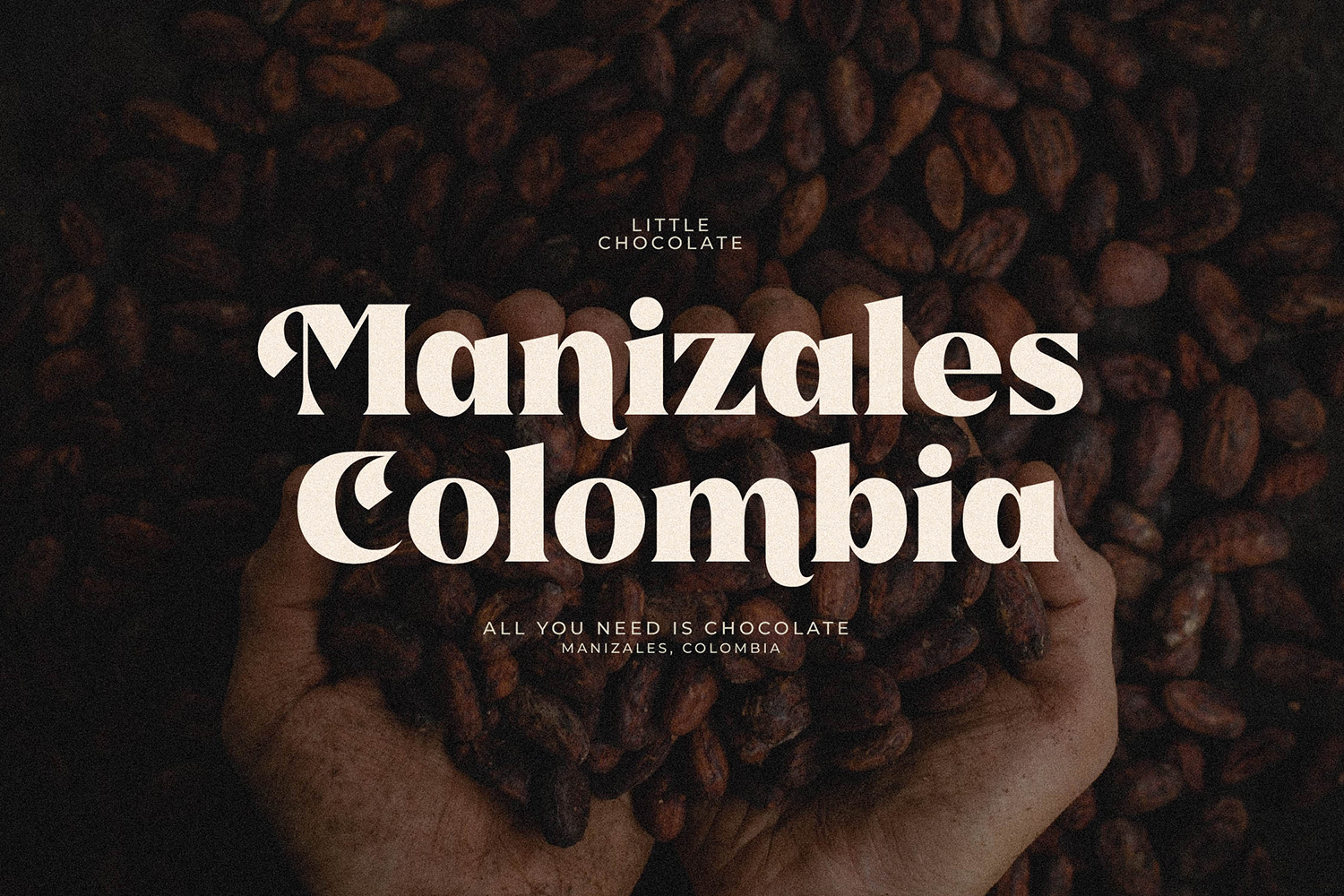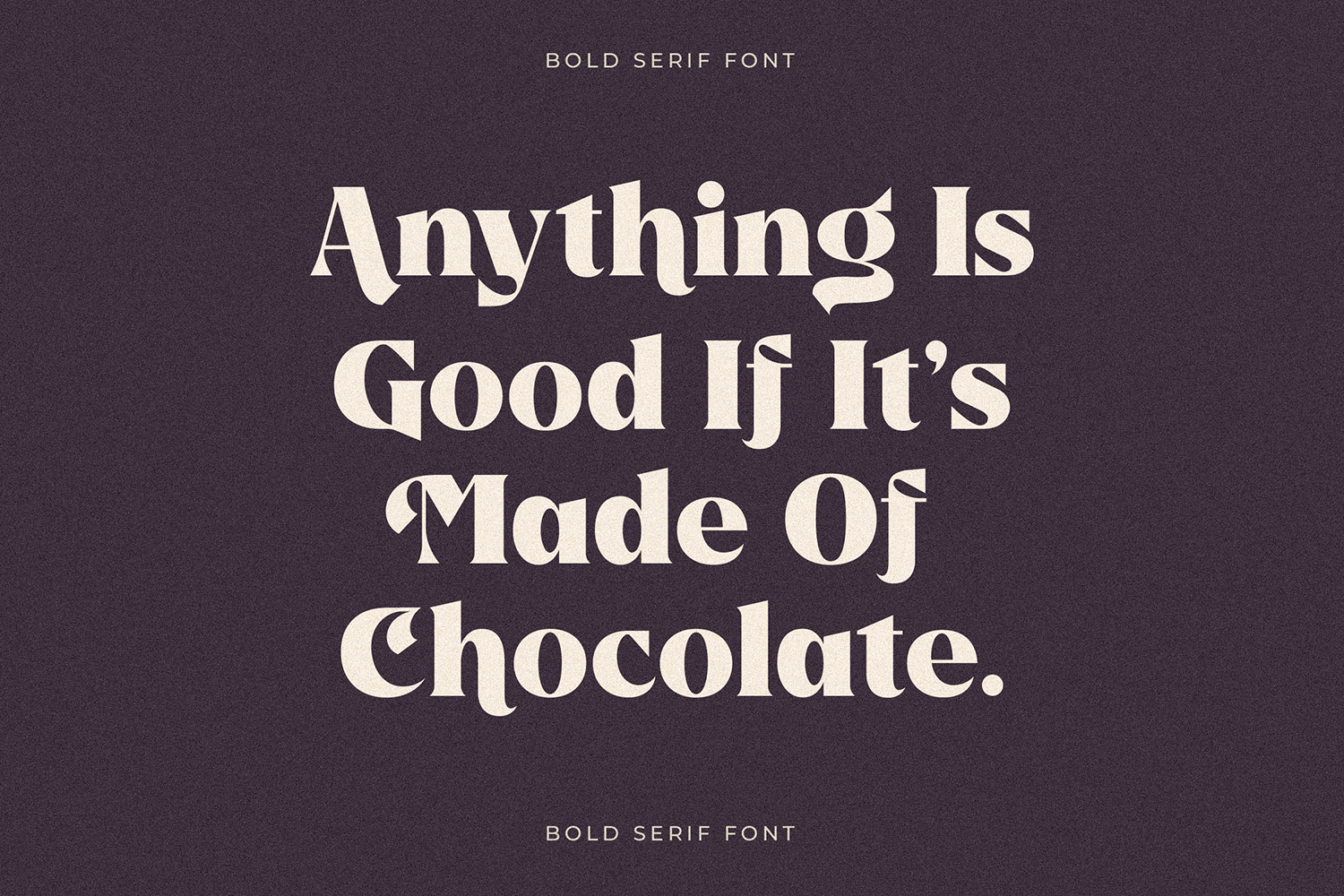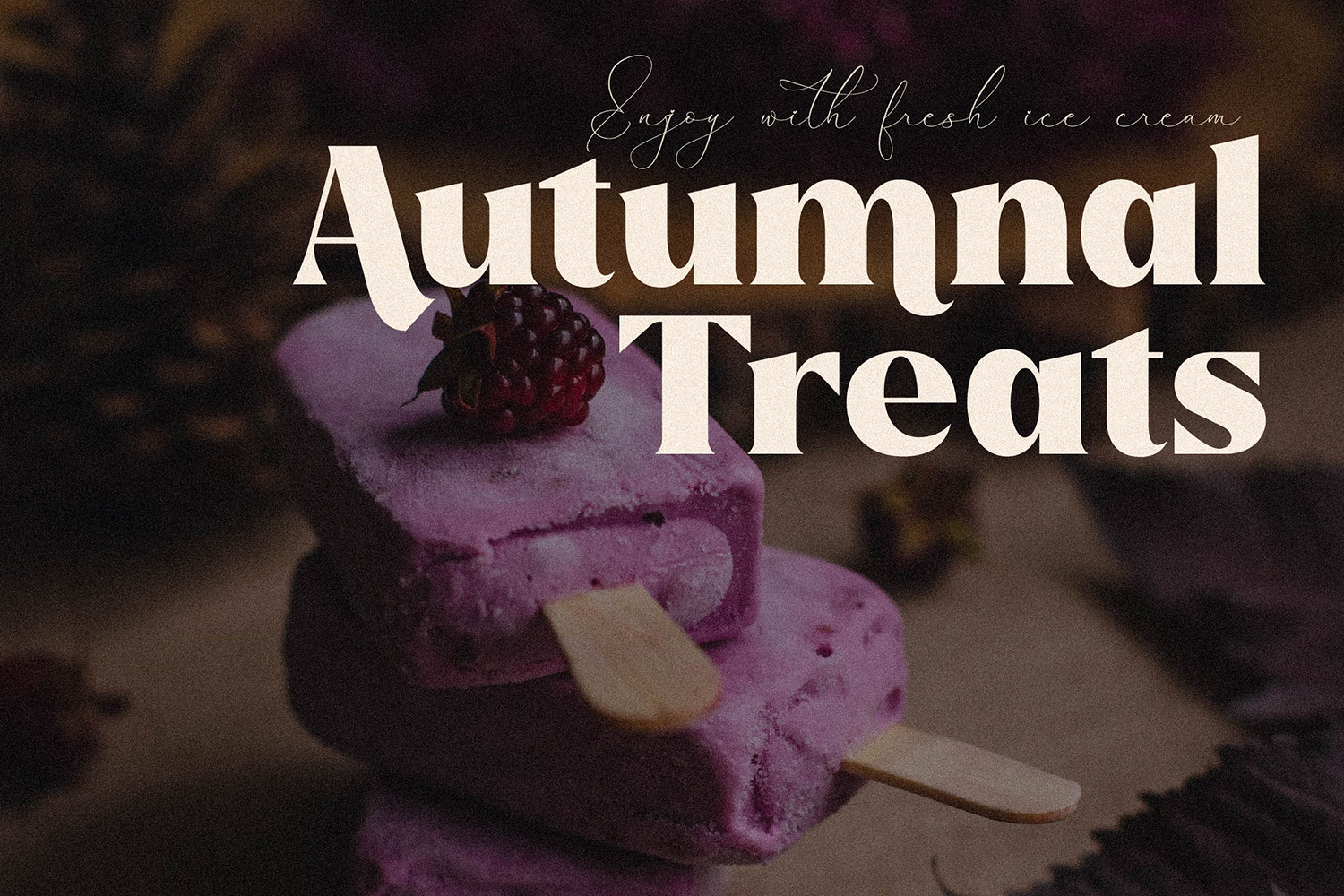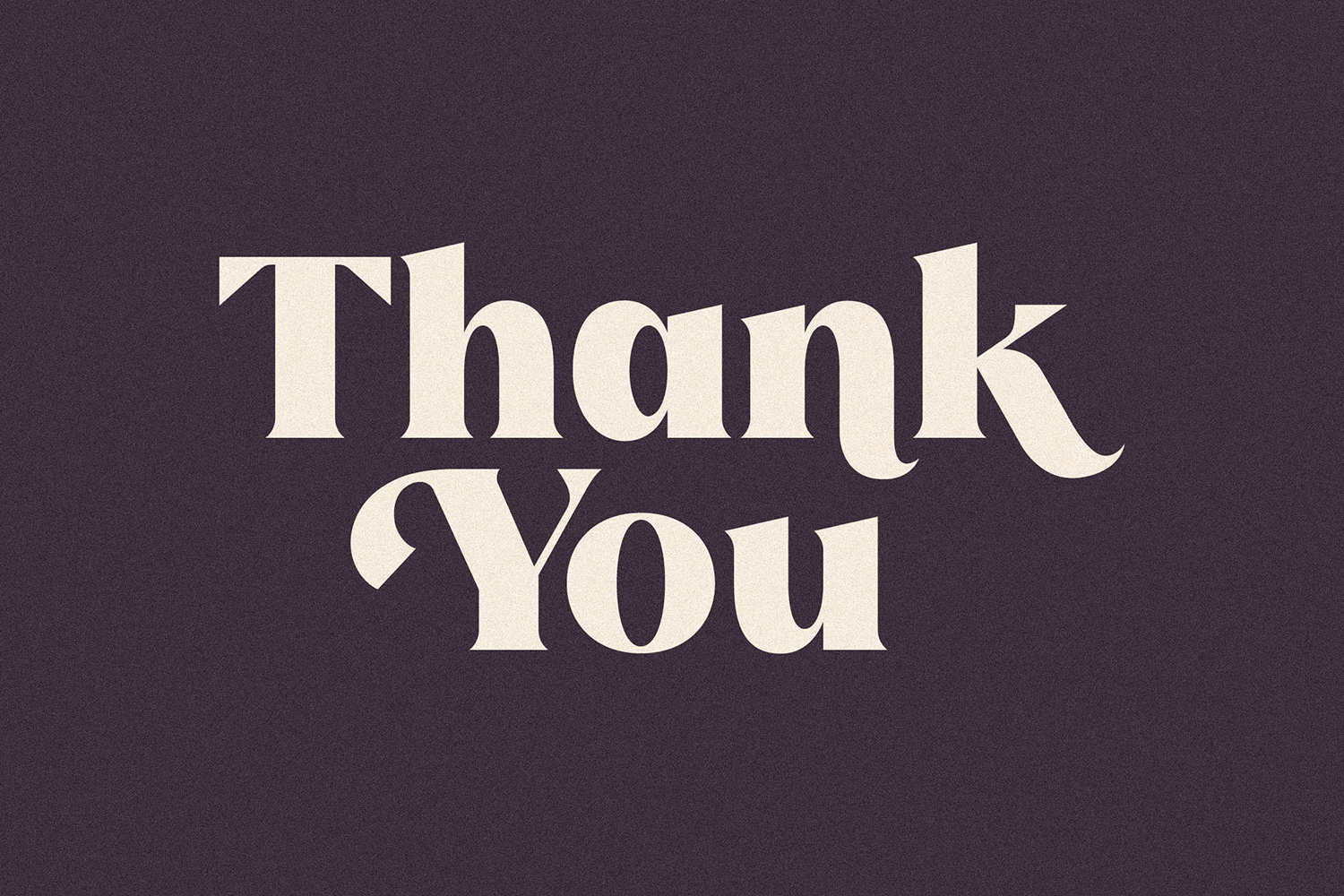
Suifak Free Font
Suifak Free Font is a contemporary and timeless serif typeface that boasts a distinctive style and fashionable appearance. With its elegant and luxurious charm, this typeface is the perfect choice for creating stunning logos, book or movie titles, fashion brands, magazines, clothing designs, lettering, quotes, and beyond. Embrace the versatility of Suifak as it effortlessly elevates your design projects, adding a touch of sophistication and allure. Experience the endless possibilities this remarkable typeface offers, allowing your creative visions to come to life with unparalleled elegance and style. This free typeface was designed by a talented Storytype Studio. If you like it don’t forget to check out the full version.